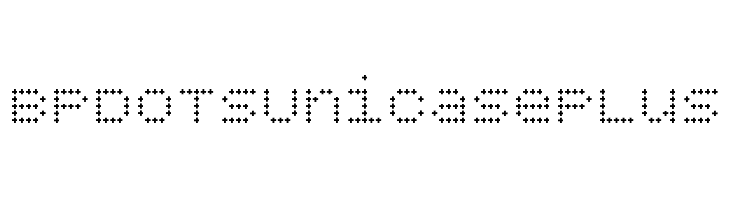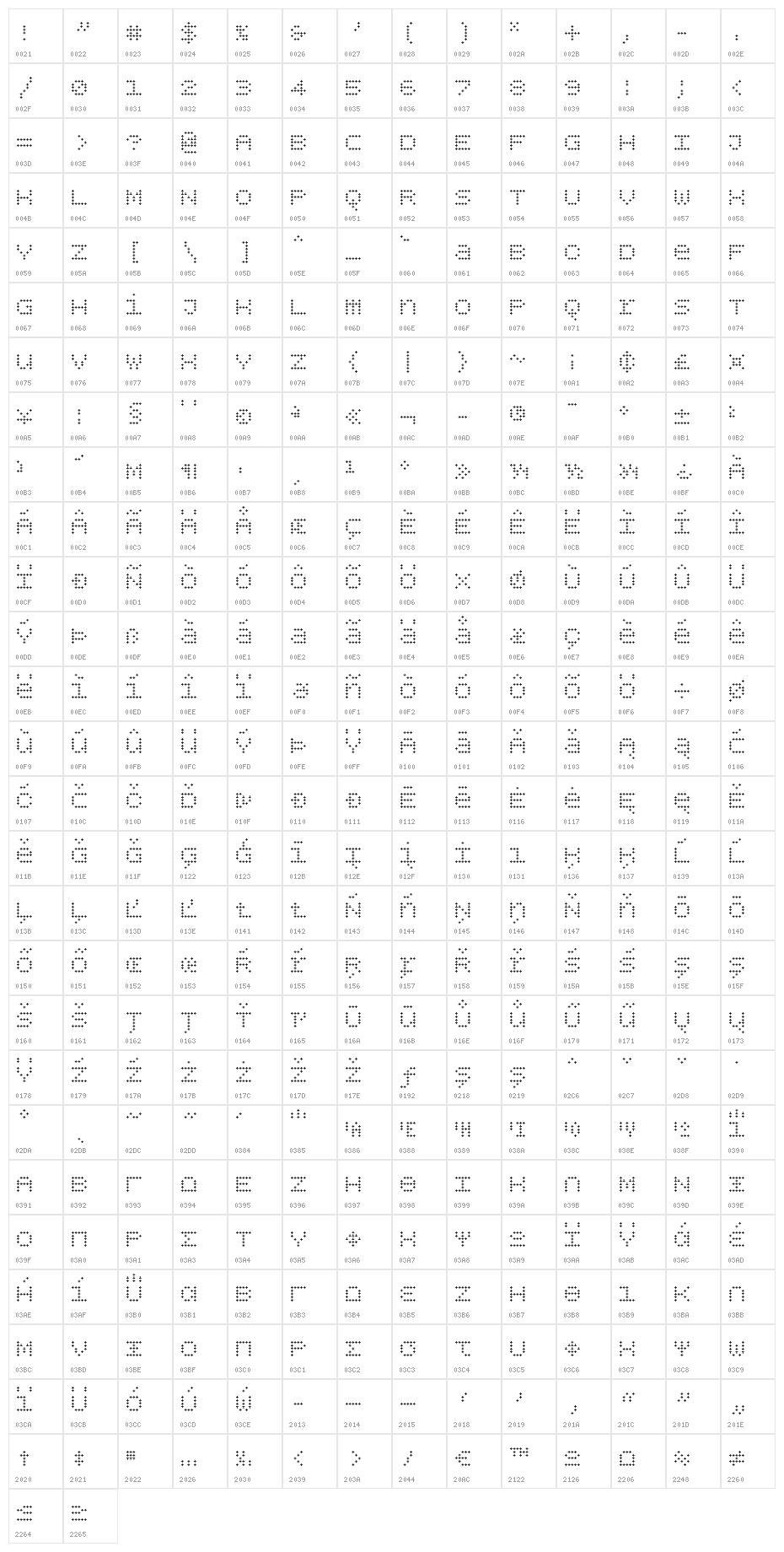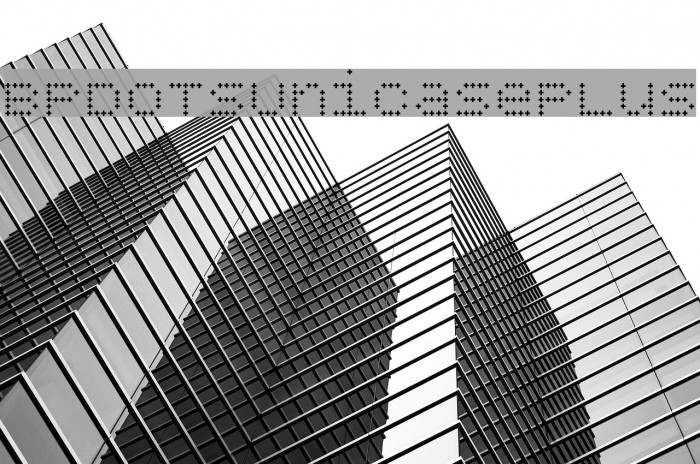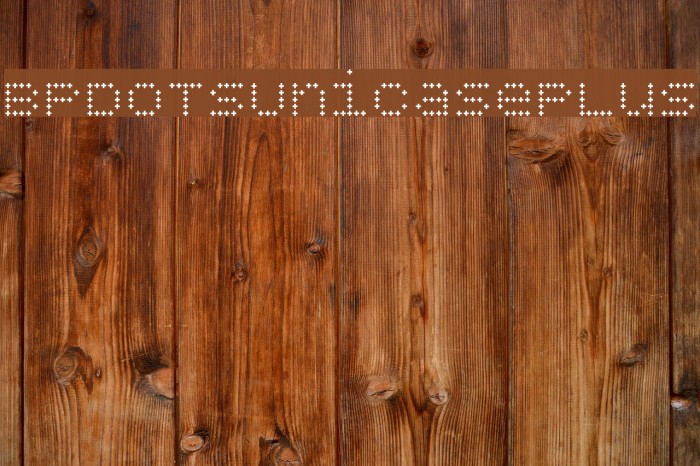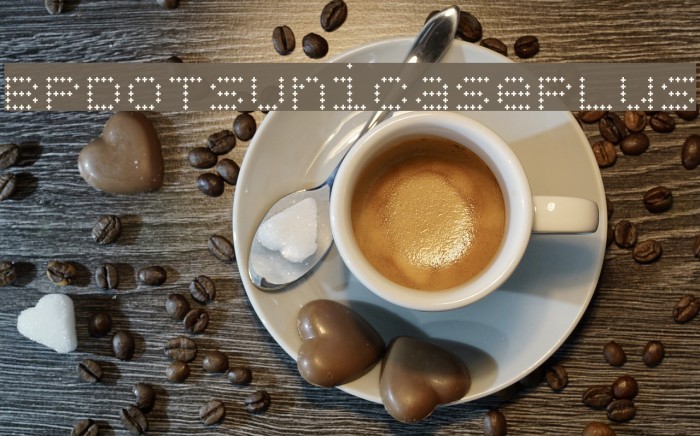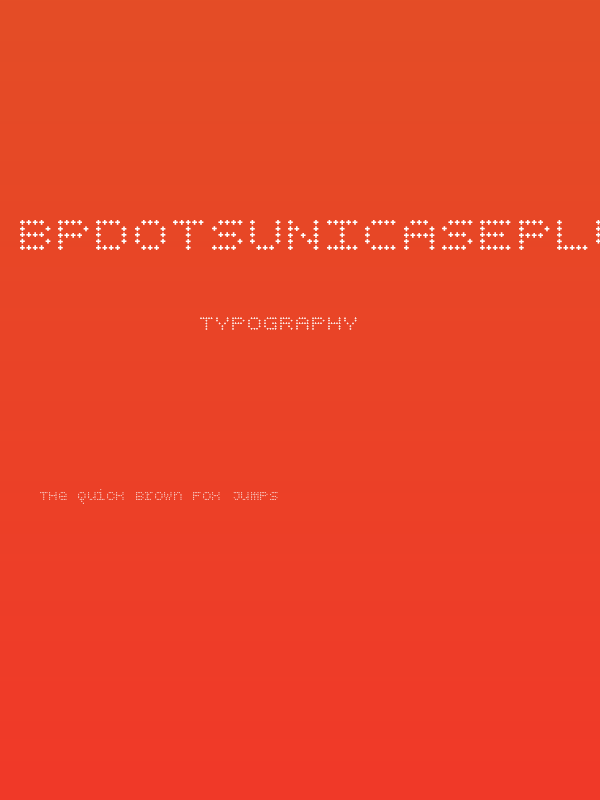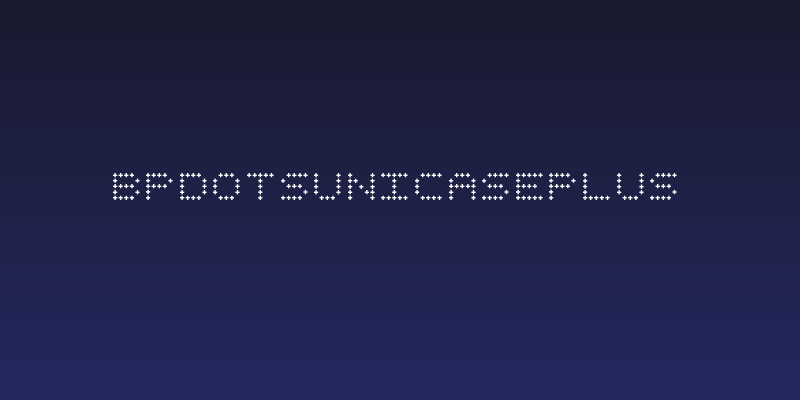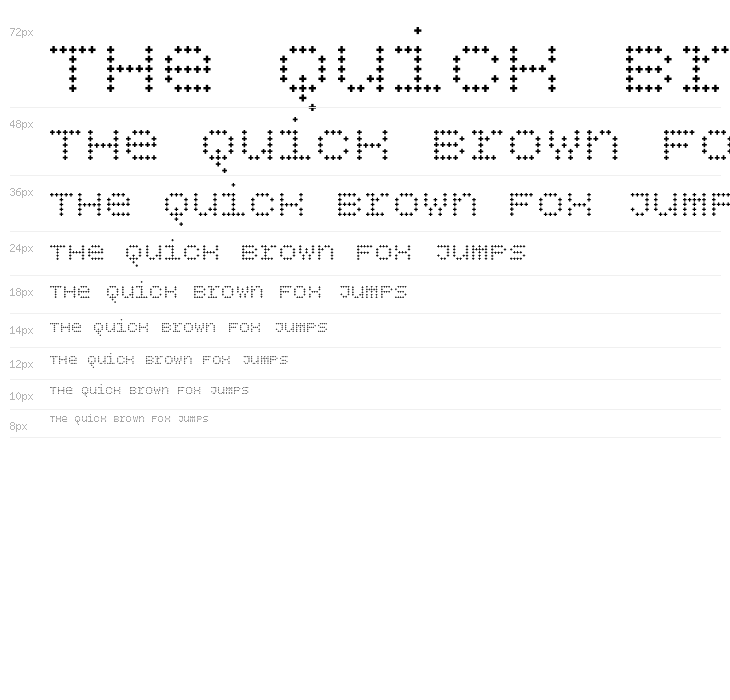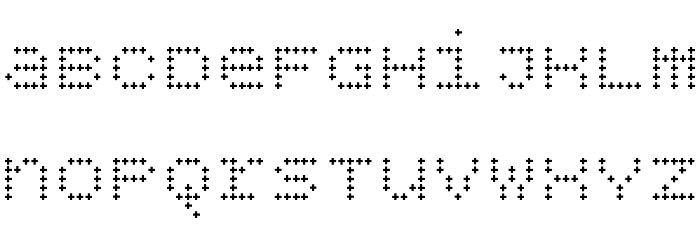
BPdotsUnicasePlus Font
BPdotsUnicasePlus Description
This font features a unique dotted design, where each character is constructed using a series of evenly spaced dots. The style is geometric and modern, offering a playful yet structured appearance. The uppercase and lowercase letters maintain a consistent height, contributing to a uniform look across the text. The numbers and special characters follow the same dotted pattern, ensuring cohesion throughout. This font is particularly eye-catching and can be used to add a distinct, contemporary flair to any project.
| Use Case | Headlines, Logos, Digital displays |
| Proposed Projects | Ideal for digital displays, creative posters, modern branding, and tech-related designs. |